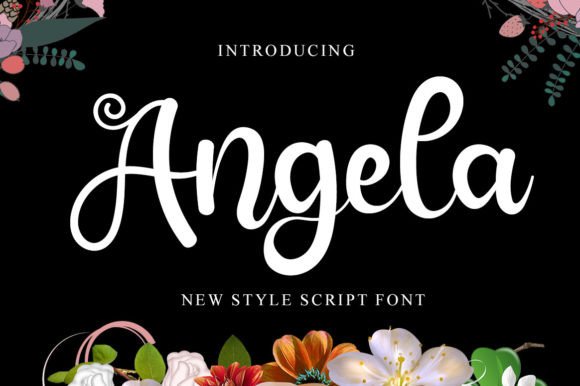
Introducing Angela: The Elegant Script Font You Never Knew You Needed
I’ll never forget the time I was working on a wedding invitation design, and my client asked me to create a custom font that looked like elegant handwriting. I spent hours scouring the internet for the perfect font, but nothing seemed quite right. That’s when I stumbled upon Angela, a stunning script font that has since become one of my go-to’s for adding a touch of sophistication to my designs.
The Design Moment That Stole My Heart
As a designer, I’ve had my fair share of late nights and early mornings spent searching for the perfect font. But when I found Angela, I knew I’d hit the jackpot. This beautiful typeface features intricate, flowing lines that emulate the natural movement of handwriting, making it the perfect choice for creating unique and personalized designs. Whether I’m working on a wedding invitation, a branding project, or a social media post, Angela always seems to elevate my work to the next level.
An Honest Review: What I Love (and What I Don’t)
- ✅ Elegant and sophisticated design that’s perfect for high-end projects
- ✅ Intricate, flowing lines that mimic handwriting
- ✅ Versatile and can be used for a variety of design projects
- ⚠️ Some users may find the font a bit too ornate for certain projects
The Story Behind Angela
Angela was designed by a talented typographer who was inspired by the elegant handwriting of 19th-century calligraphers. The font was created as a way to bring a touch of sophistication and elegance to modern design projects, and has since become a favorite among designers and crafters.
| Font Name | Angela Font |
| Author | Eddygoodboy |
Q: What is Angela’s personality?
A: Angela is an elegant and sophisticated script font that’s perfect for high-end projects. It’s ideal for designers who want to add a touch of luxury and refinement to their work.
Q: Does Angela support OpenType features?
A: Yes, Angela supports a range of OpenType features, including glyphs, stylistic alternates, and more. However, the availability of these features may vary depending on the software you’re using.